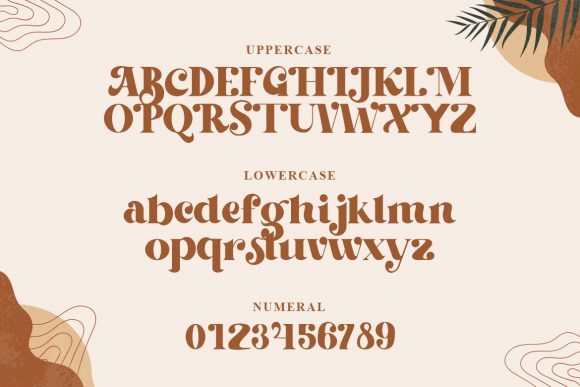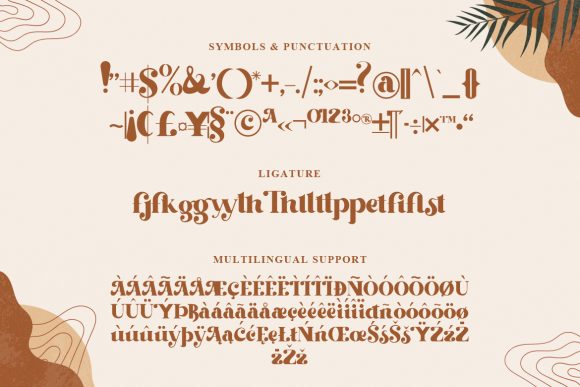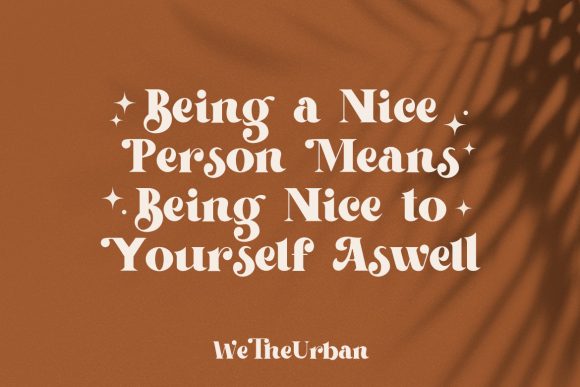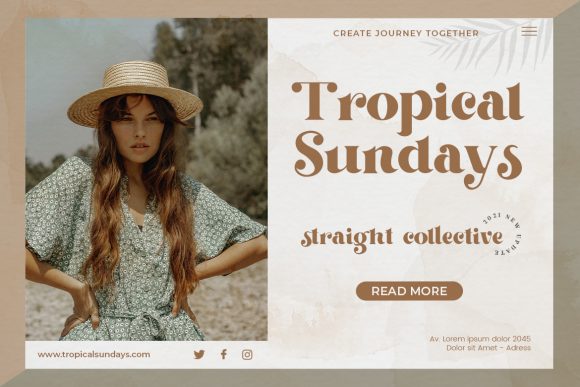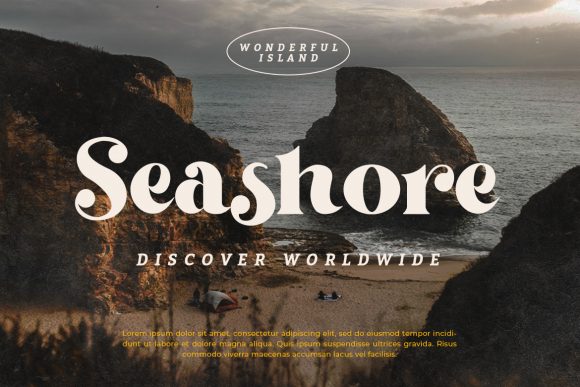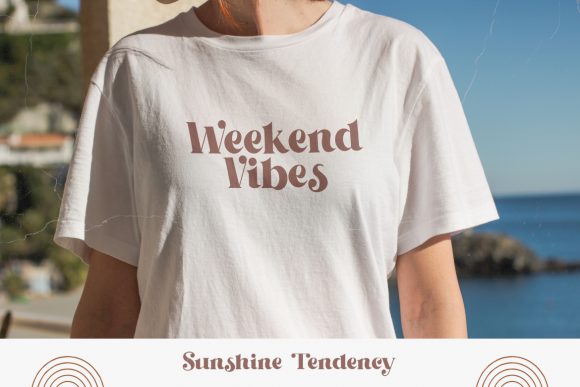
Introducing Beachfly Font: The Ultimate Retro Typeface for Creative Projects
Are you on the hunt for a font that exudes a sense of nostalgia, playfulness, and sophistication? Look no further than the Beachfly font! This stunning typeface is the perfect addition to any design project, bringing a unique blend of classic charm, cuteness, elegance, and vintage flair.
The Perfect Blend of Retro and Elegance
The Beachfly font is a masterful combination of retro and elegant elements, making it a standout in any design. Its classic and vintage undertones evoke a sense of timelessness, while its cute and playful features add a modern twist. This font is sure to bring a smile to your face and inspire creativity in any project.
One of the best things about the Beachfly font is its versatility. Its unique character makes it perfect for a wide range of design applications, from wedding invitations and social media posts to greeting cards and more. Whether you’re a designer, crafter, or DIY enthusiast, this font is sure to become a go-to in your toolkit.
Wedding Invitations and Stationery
Beachfly font is an excellent choice for wedding invitations, save-the-dates, and other stationery. Its elegant and vintage vibe adds a touch of sophistication and romance to any design. You can use it to create beautiful, one-of-a-kind wedding stationery that will set the tone for an unforgettable celebration.
Social Media Posts and Graphics
Make your social media posts stand out with the Beachfly font! Its playful and eye-catching design is perfect for creating engaging graphics, banners, and ads. Whether you’re promoting a product, service, or event, this font is sure to grab attention and drive results.
Greeting Cards and Paper Crafts
Crafters and paper crafters, rejoice! The Beachfly font is a dream come true for creating unique and personalized greeting cards, gift tags, and other paper crafts. Its cute and playful design adds a touch of whimsy to any project, making it perfect for special occasions like birthdays, holidays, and more.
Key Features of Beachfly Font
- Retro and vintage vibe: Adds a touch of classic charm to any design
- Cute and playful design: Perfect for creating eye-catching and engaging graphics
- Elegant and sophisticated: Ideal for wedding invitations, stationery, and other formal designs
- Versatile: Suitable for a wide range of design applications, from digital to print
Tips for Using Beachfly Font
To get the most out of the Beachfly font, here are a few tips to keep in mind:
- Experiment with colors: Beachfly font looks great in a variety of colors, from bright and bold to soft and pastel
- Mix and match: Combine Beachfly font with other fonts and design elements to create unique and interesting contrasts
- Play with textures: Add texture and depth to your design by incorporating patterns, gradients, and other effects